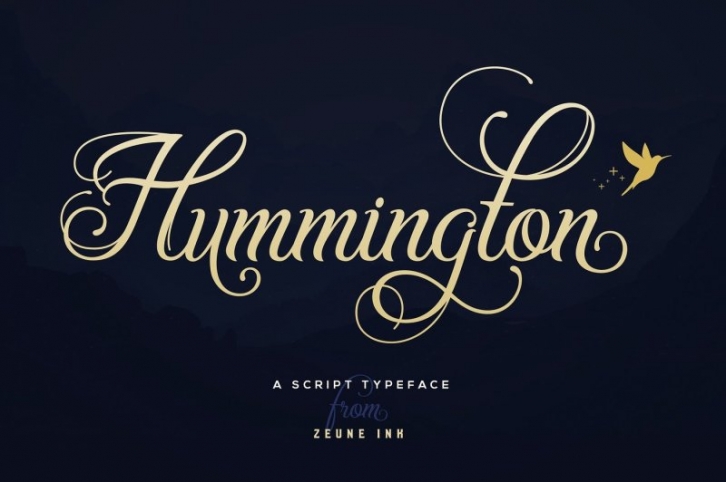
Hummington was crafted with precise shapes and clean lines. Gorgeous swashes connections make combining letters easier, more fun, and outstandingly beautiful. This script typeface is perfect for a variety of projects, such as logo design, prints, displays, clothes, label designs, posters, cards and much, much more.